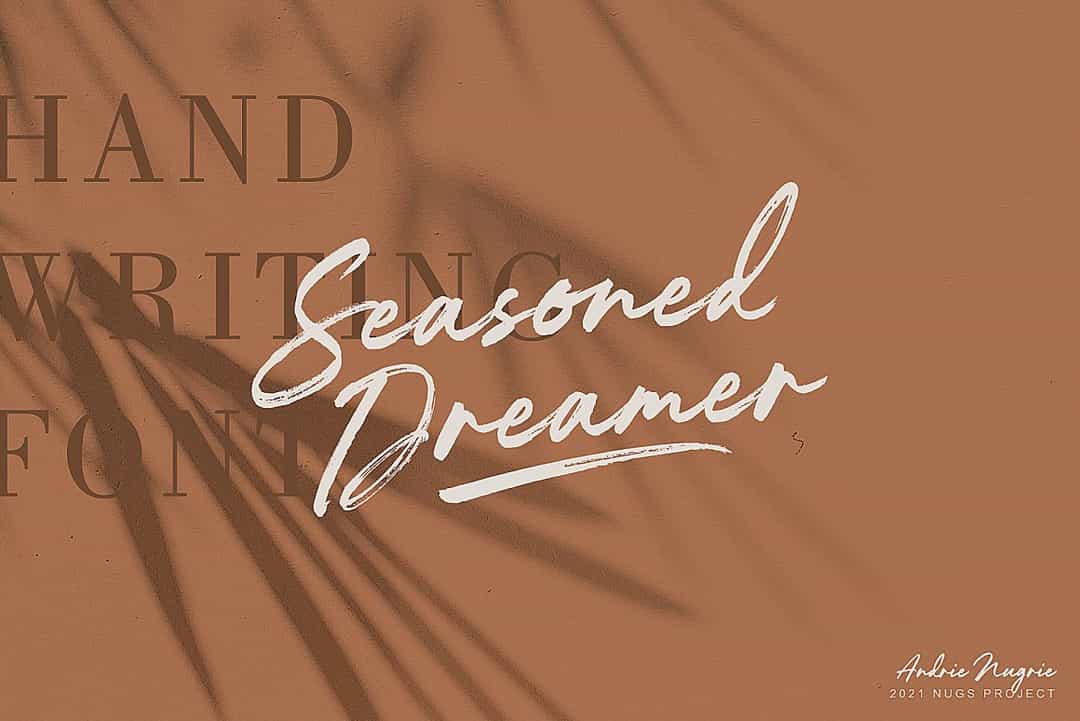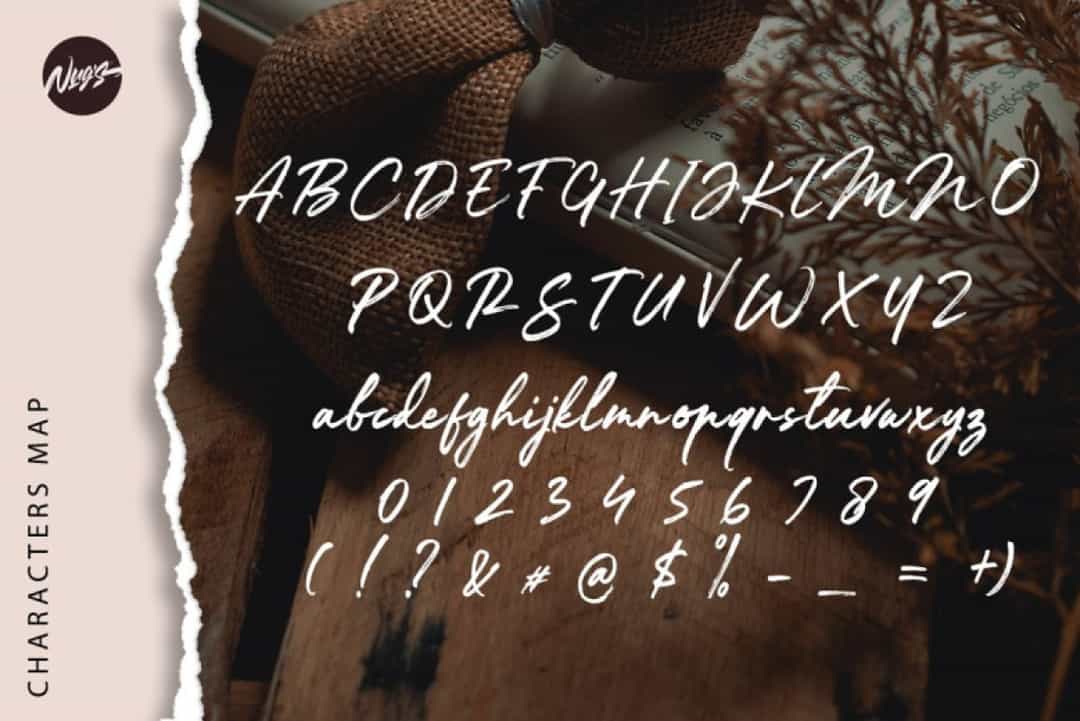
Discover Seasoned Dreamer Font, part of the Brush collection—a versatile and unique font perfect for adding a personal touch to your projects. Download it for free and enjoy crafting designs with style, from invitations to social media posts. This font is available exclusively for personal use, giving you the freedom to create without limits. Unlock your creativity with Seasoned Dreamer Font today!
Thank you so much for coming by! It is my great pleasure to introduce “Seasoned dreamer”, an easy yet sophisticated handwritten brush script font designed to add warmth, naturalness, and handmade craftsmanship to your designs. Use this font for logos as well as social media, websites, blogs, IG, SM posts, branding, business cards etc!